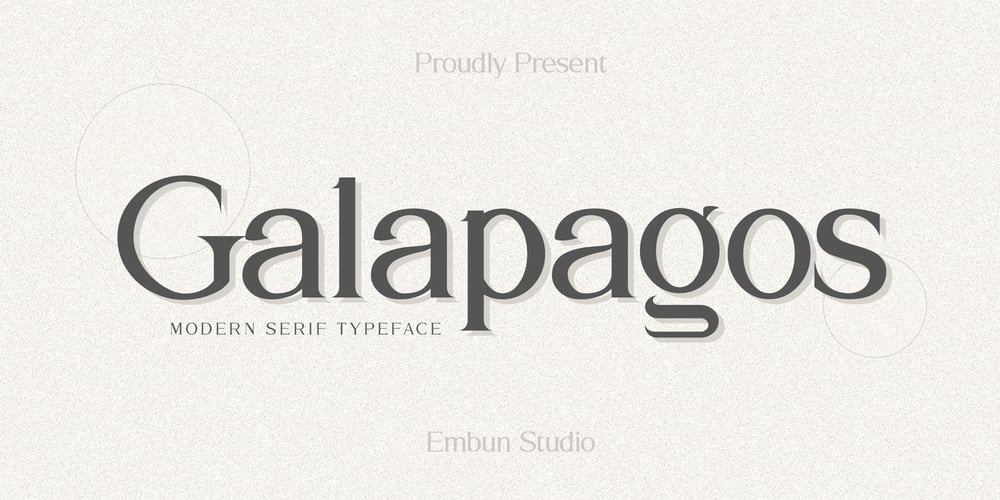
Galapagos Font Family was designed by Aditya Rezki Apriyadi and published by EmbunStudio2018. Galapagos contains 1 styles and family package options. Welcome to Luxury serif font called “Galapgos” !!-Why we give this serif font named “Galapagos” ??-because we are getting inspiration from Galapagos Islandin there you’ll find a beauty and serenity, so are this font,you’ll find a beauty, luxury and serenity when you use it for your projectsuch as magazine, social media content, logo design and more-can’t wait to see this “Galapagos” serif font on your project,don’t be shy to hit me on message if you have any trouble orhaving some suggestion for this font, to make it more betterin the next Update !!-Thankyou